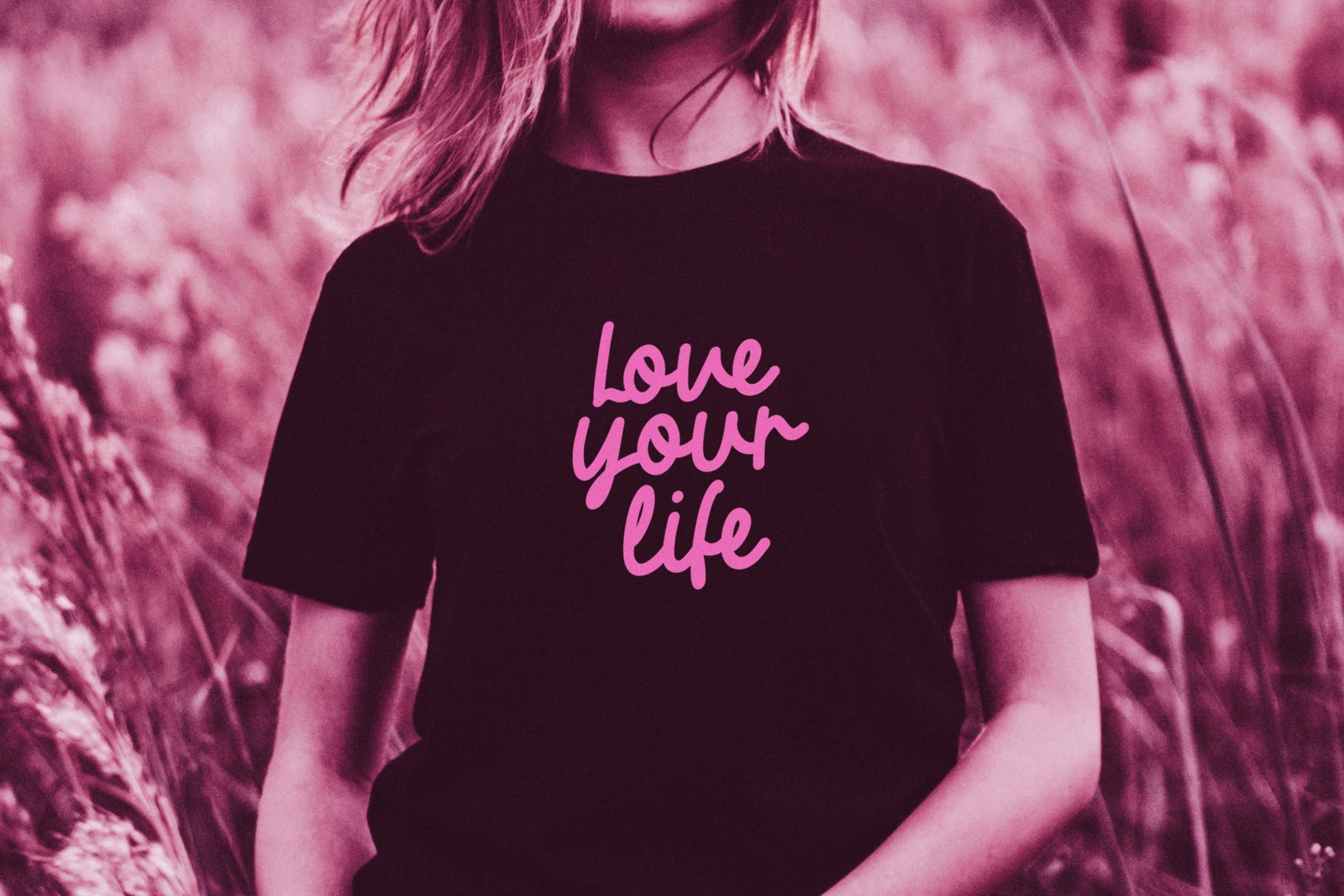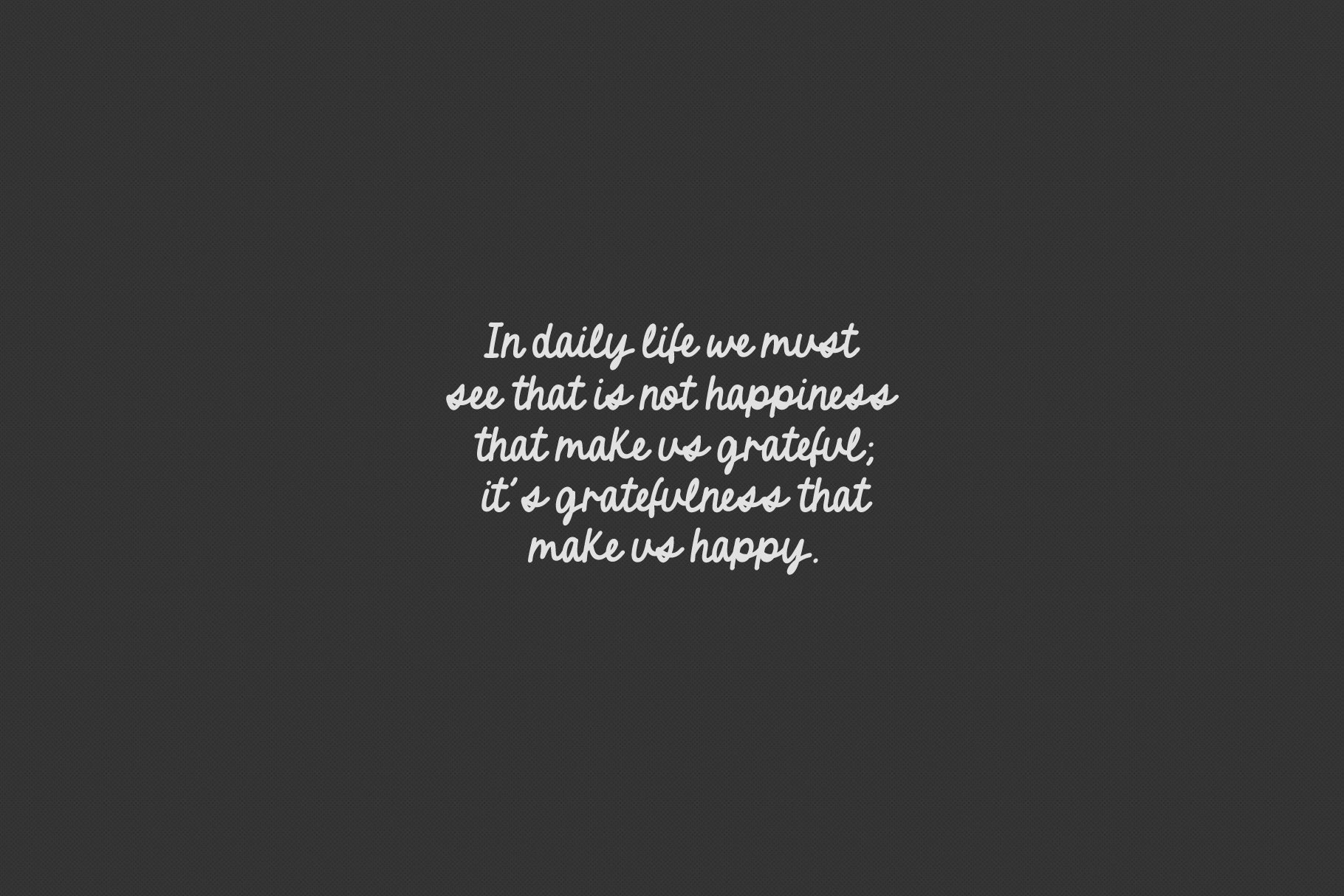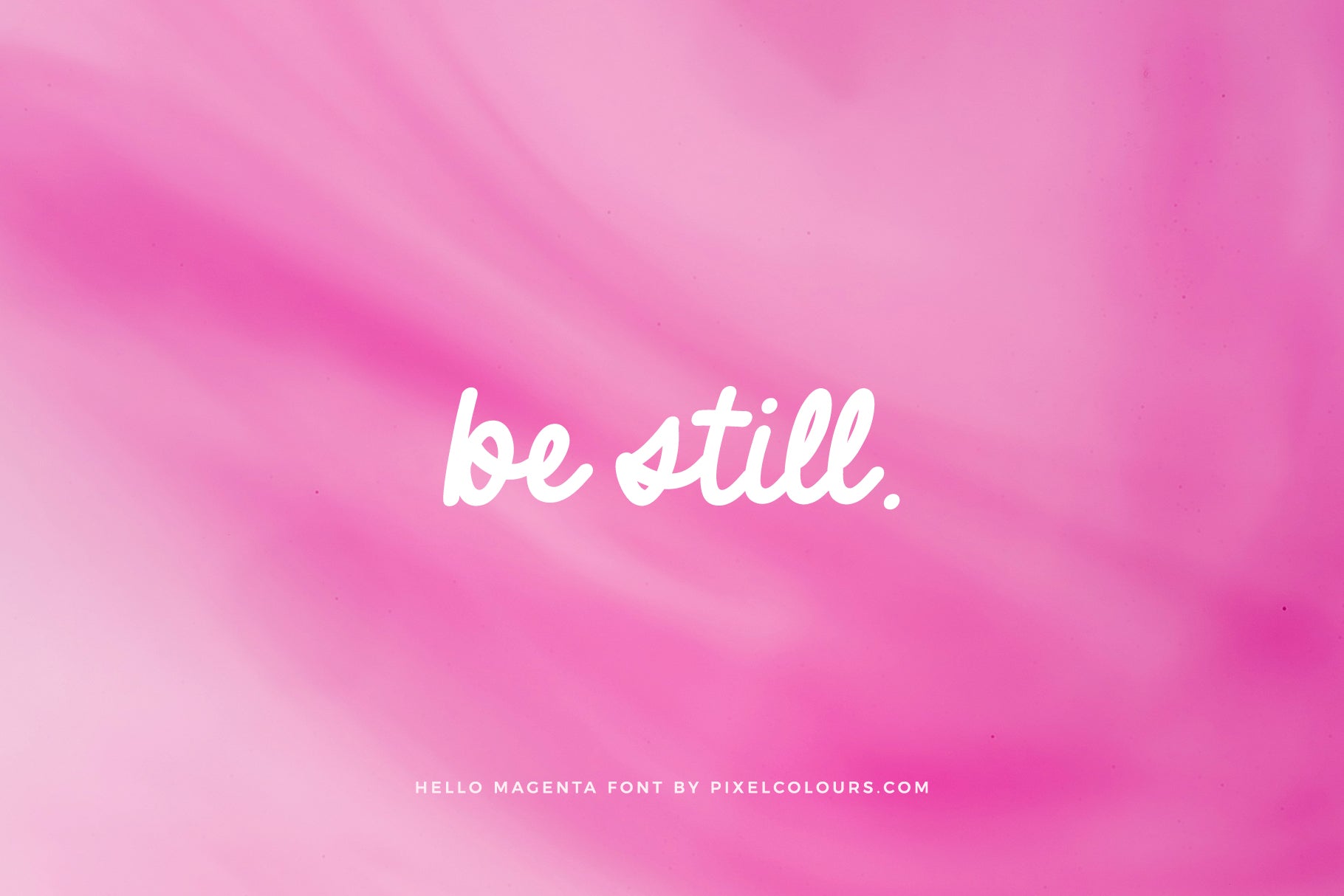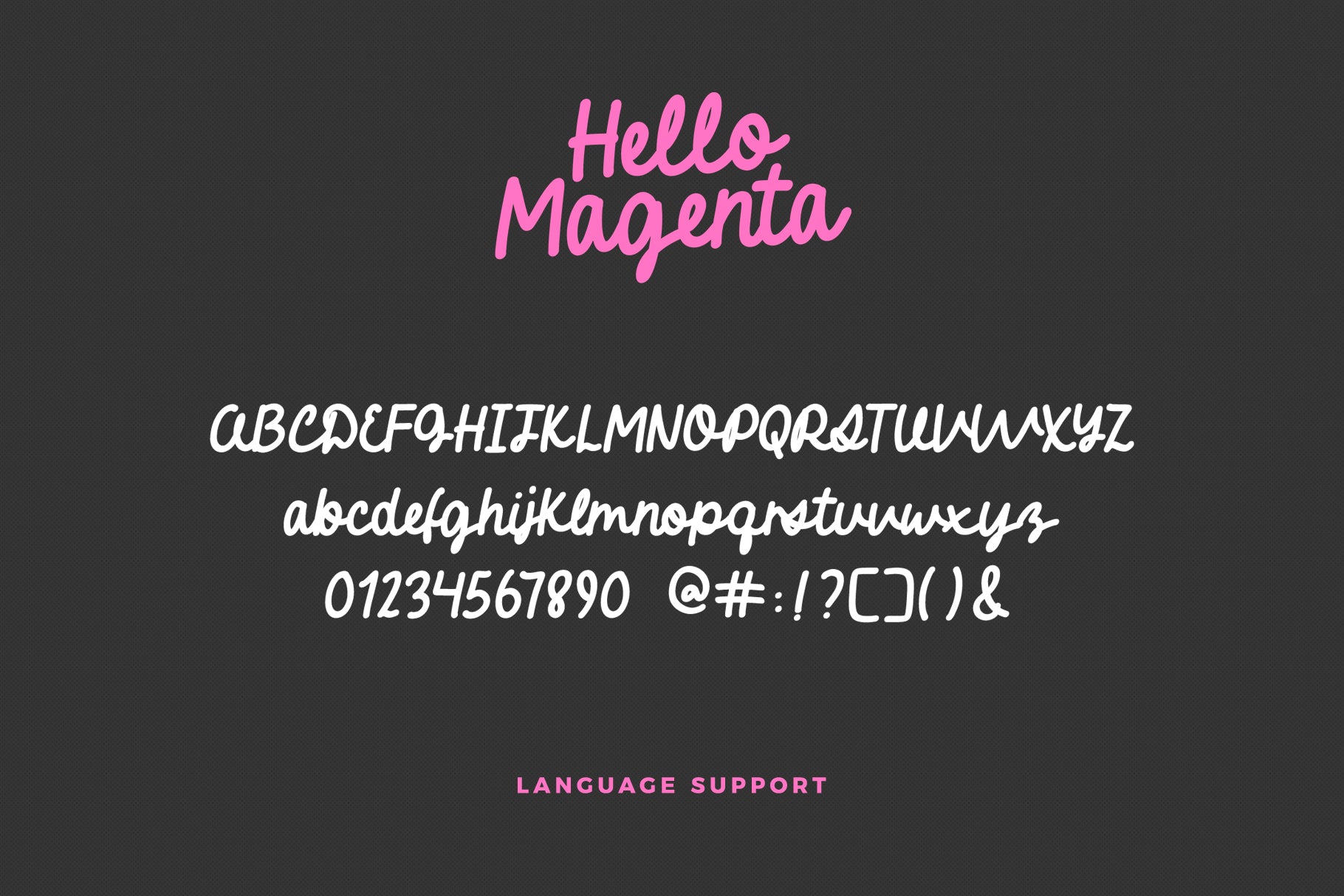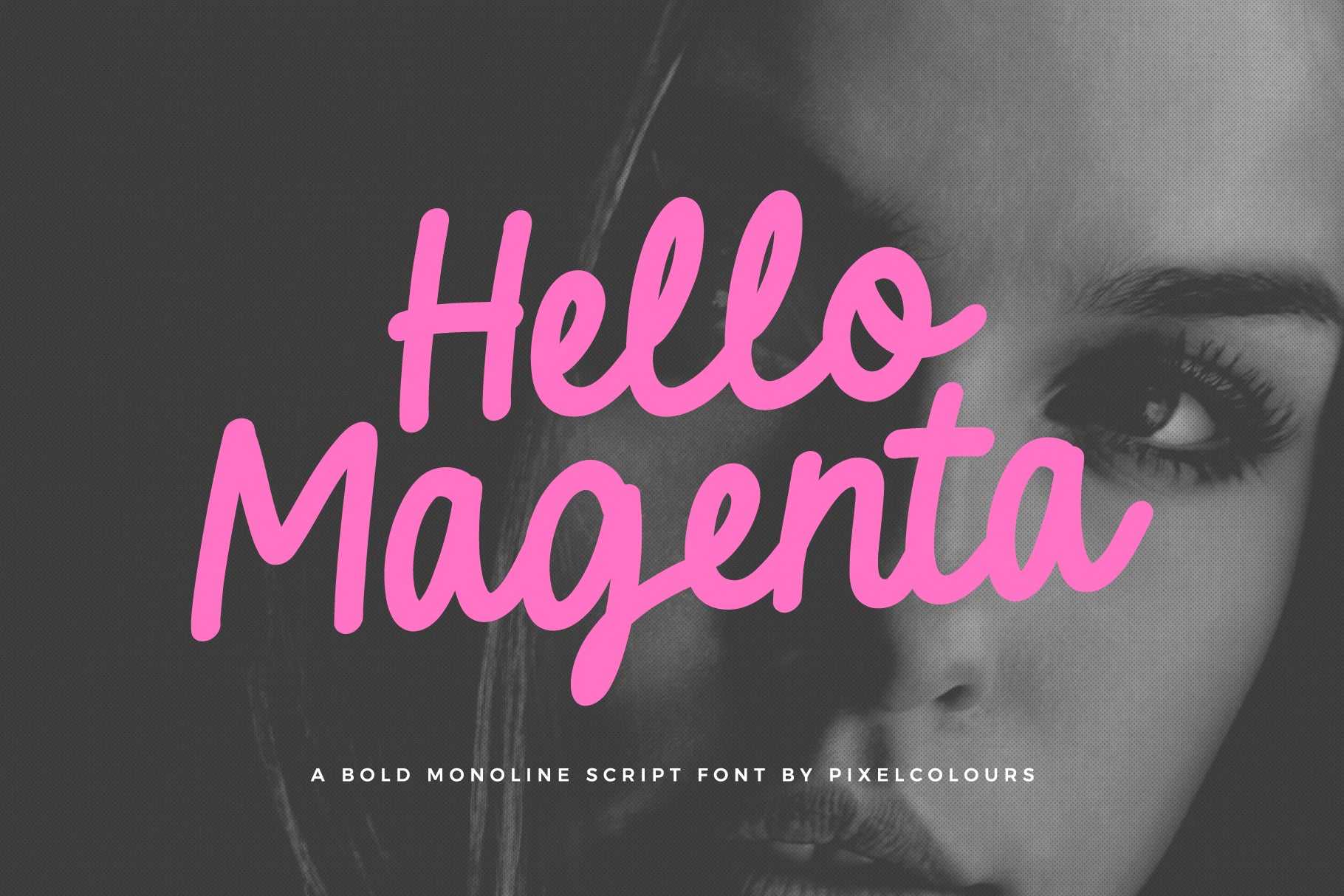
Hello Magenta Bold Script Font
Hello Magenta is a handwritten script font that is modern, bold and fun. Great for quotes, social media posts or any project that has a happy mood.